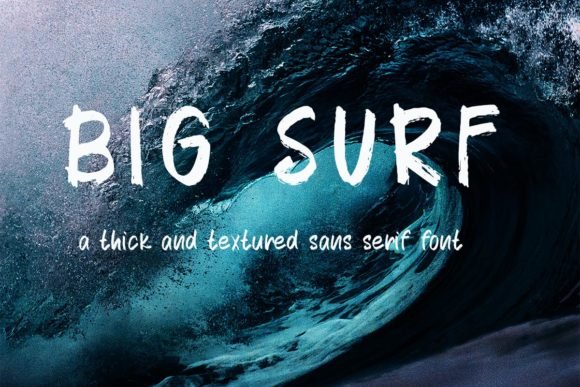
32 Classic Surf Fonts for Coastal Lifestyle Branding 2026
Finding the right Surf Fonts can help set a relaxed, oceanic tone for your latest designs. Whether you are working on a beach-themed menu or a coastal clothing line, these typefaces capture the spirit of summer perfectly. This collection offers a variety of styles that evoke the sound of crashing waves and warm sand.
Beach culture has always been associated with unique typography, ranging from bold retro scripts to weathered block letters. These 32 selections provide the tools you need to build a visual identity that feels both authentic and fun. You can easily find options that match everything from a 1970s surf shop to a modern resort.
Choosing a typeface that reflects the outdoors is vital for projects centered on the sea. These options provide clean lines and creative shapes that stand out on screen or in print. Let these fonts help you tell a story of sun, sea, and freedom in your next creative venture.
1. Big Surf Font
Big Surf Font – Big Surf brings a gritty, hand-drawn energy to digital layouts. Its brush strokes carry a natural weight that mimics real ink on paper, making it a top choice among Surf Fonts for those wanting an authentic look. Every character feels deliberate yet relaxed, perfectly capturing a coastal aesthetic.
This typeface works best for logo designs or social media headers that need a human touch. Its legible cursive style ensures that your message remains clear even against busy backgrounds. Pair it with high-contrast colors to make your beach-themed projects pop.
2. Sun Surf Font
Sun Surf Font – Sun Surf offers a clean, airy take on traditional sans serif styles. It discards heavy weights in favor of thin, precise lines that evoke the feeling of a bright morning on the coast. This typeface prioritizes readability while maintaining a subtle thematic connection to oceanfront signage.
Graphic designers often use this style for long-form text or minimalist branding. It provides a crisp visual experience that doesn’t distract from the main imagery. Its understated elegance makes it a reliable asset for creating modern, sun-drenched layouts.
3. Surf Up Font
Surf Up Font – Surf Up highlights the beauty of manual lettering with its rustic, hand-brushed appearance. The uneven edges and fluid curves give it a raw, tactile quality often found in vintage surf shop signs. It emphasizes a relaxed lifestyle through its informal flow and organic shapes.
Use this script when you want to inject a sense of adventure into your creative work. It fits perfectly on apparel designs or event posters for outdoor activities. The variation in stroke thickness adds depth, ensuring your text looks like it was painted by hand.
4. Surf Breaks Font
Surf Breaks Font – This sans serif captures the relaxed energy of a coastal afternoon without trying too hard. Its clean lines and balanced proportions make it a reliable choice for posters or apparel designs that need a touch of salt-air charm. Using these Surf Fonts allows you to maintain readability while still channeling that specific beachside mood often found in vintage tourism ads.
The letterforms feel open and airy, mimicking the way sunlight hits the water at high tide. It avoids the clutter of more decorative styles, making it perfect for headlines that need to breathe. Designers looking for an adaptable tool for summer-themed branding will appreciate how this typeface stays professional yet casual.
5. Laguna Tropic Font Duo
Laguna Tropic Font Duo – This pair brings a heavy dose of nostalgia, pulling inspiration from the golden age of coastal motels and sun-drenched road trips. The combination of a serif and sans display creates a visual harmony that feels both established and relaxed. You can almost feel the heat off the pavement and the smell of old-school wax when you see these organic curves on a layout.
Its bold character shines when applied to resort branding or retro-style packaging where personality is paramount. The handcrafted shapes avoid the sterile look of modern digital types, favoring instead a soft, lived-in aesthetic. It works particularly well for large-scale graphics that want to evoke a sense of timeless summer adventures.
6. Beach Life Font
Beach Life Font – Every character in this decorative set is a small piece of art, featuring illustrations from palm trees to coconuts hidden within the letters. It turns standard text into a playful narrative, ideal for children’s apparel or festive party invitations. The attention to detail ensures that even simple words feel like a fully realized tropical theme.
Because each glyph contains hand-drawn elements, the typeface acts as both a font and a graphic element simultaneously. It simplifies the design process for stickers or merchandise by providing built-in coastal imagery. This style thrives in high-energy projects where a fun, illustrative look is the main priority.